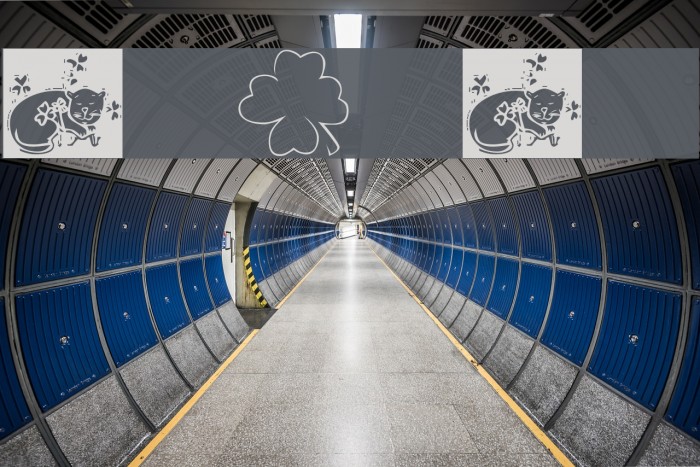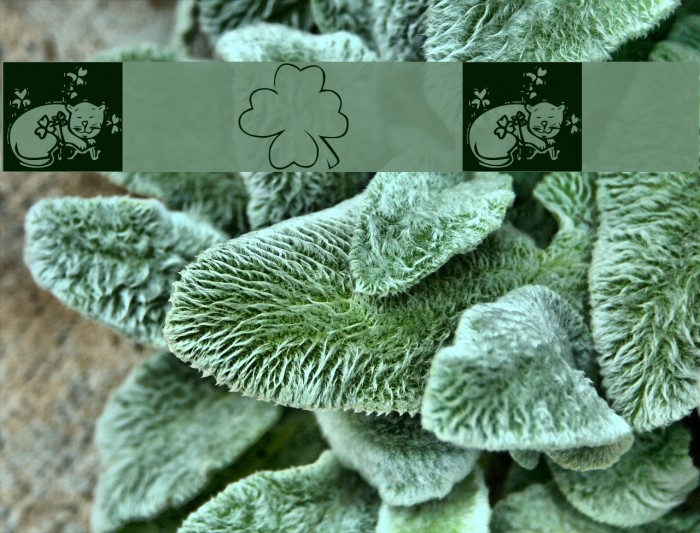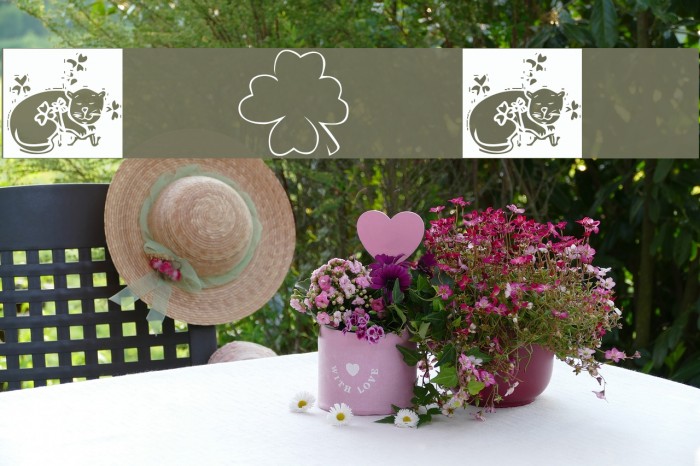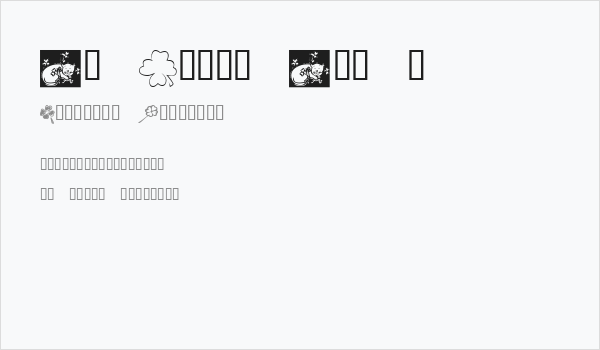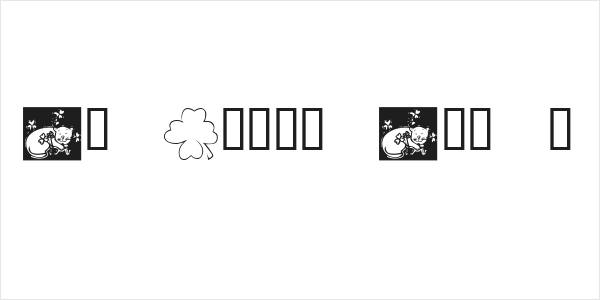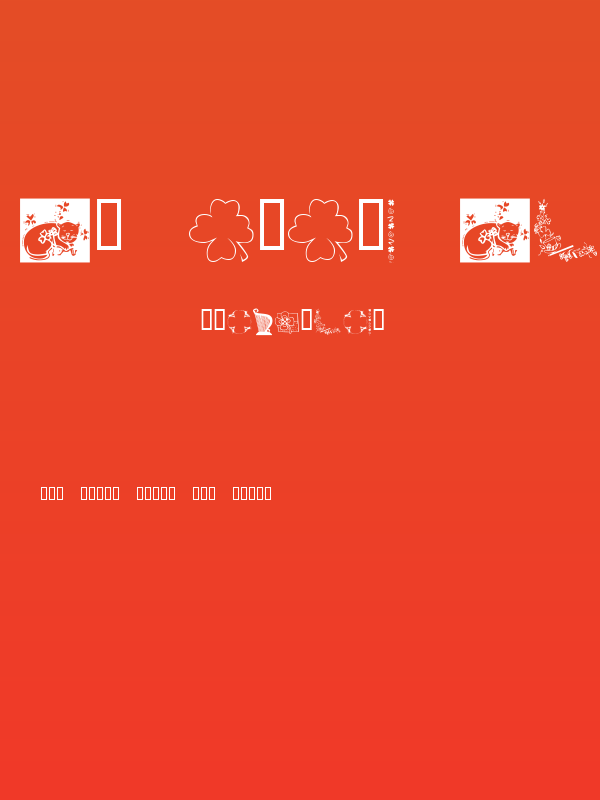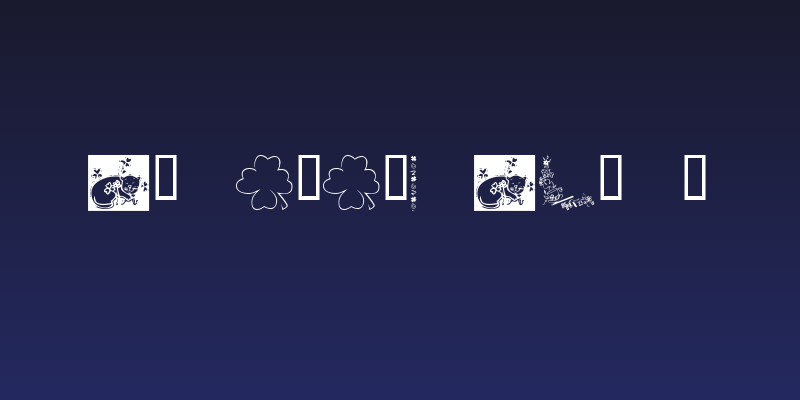
KR Irish Kat 3 Font
KR Irish Kat 3 Description
This is a decorative font featuring a variety of Irish-themed symbols and icons. Each character is represented by a unique graphic, such as shamrocks, leprechauns, and harps, rather than traditional alphanumeric characters. The style is playful and whimsical, with a strong emphasis on Irish cultural motifs. The graphics are bold and clear, making them suitable for festive and themed designs. The font is not designed for text but rather for creating decorative elements that convey a sense of fun and celebration.
| Use Case | Logos, Decorative elements |
| Proposed Projects | Ideal for St. Patrick's Day decorations, themed party invitations, and festive banners. |